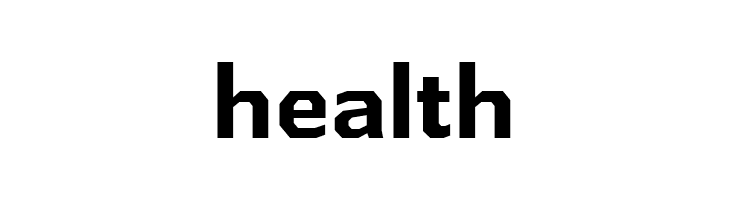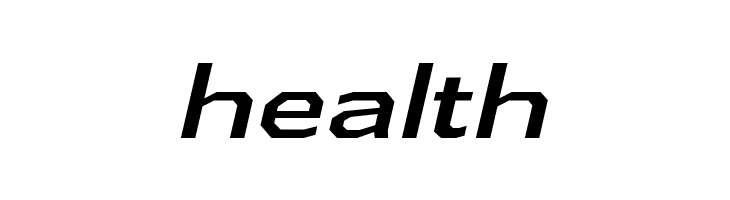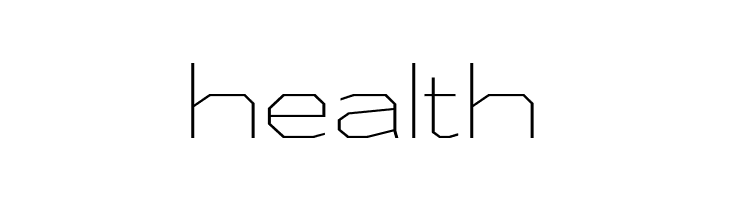
A bold, geometric sans-serif font with strong, angular lines.
A bold, geometric font with strong, angular shapes for impactful design.
A modern, italic font with angular, geometric characters and a dynamic style.
A geometric, modern font with clean lines and sharp angles.
Bold, italic font with angular lines and a dynamic, modern style.
A bold, italic font with a dynamic, geometric style.
A bold, italicized font with a modern, dynamic style.
A bold, geometric font with a strong and angular design.
A modern, angular italic font with geometric precision.
A geometric, angular font with a modern and minimalist aesthetic.